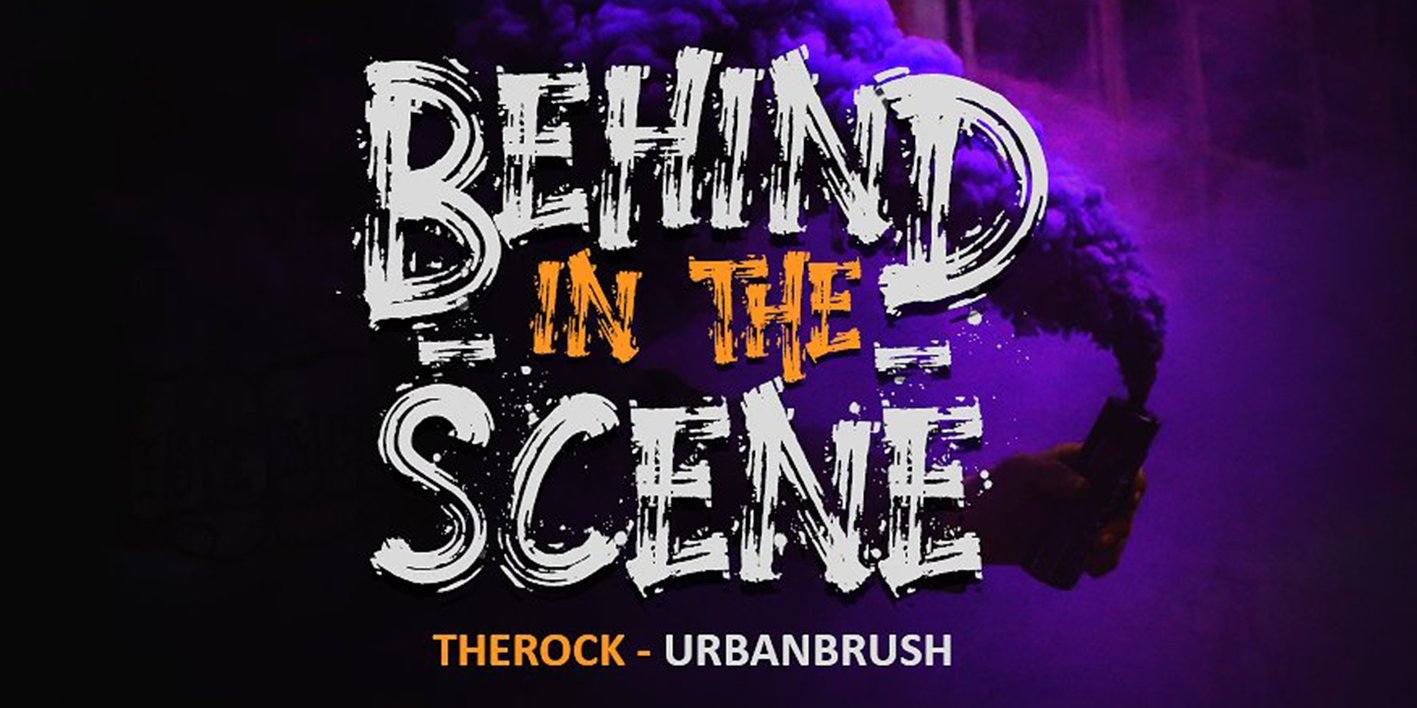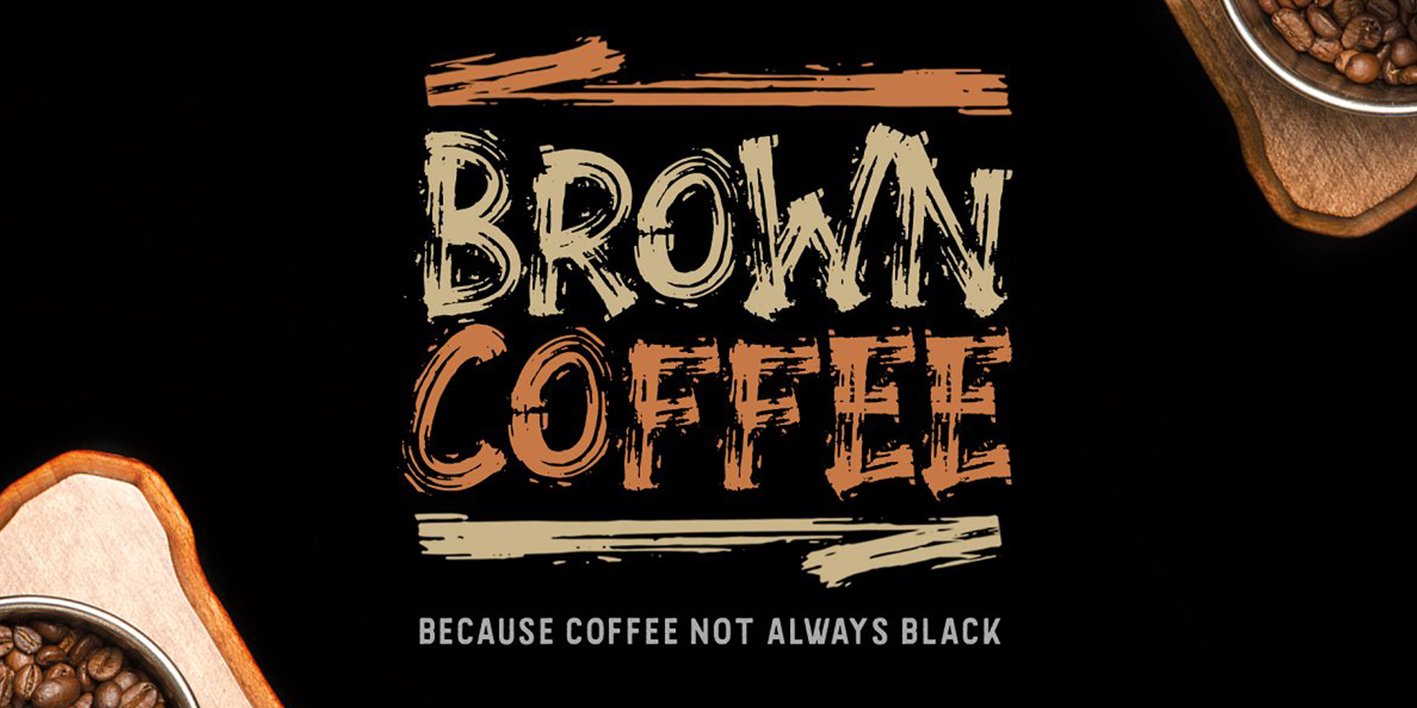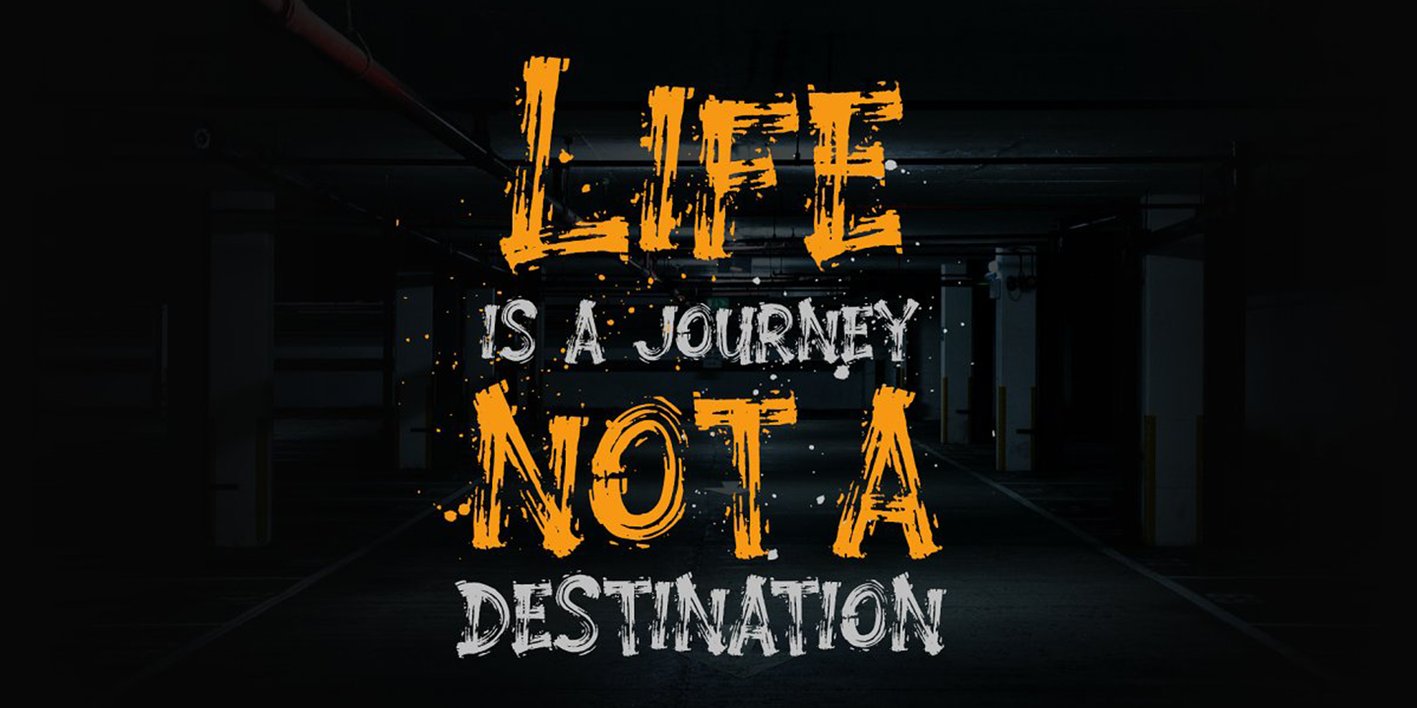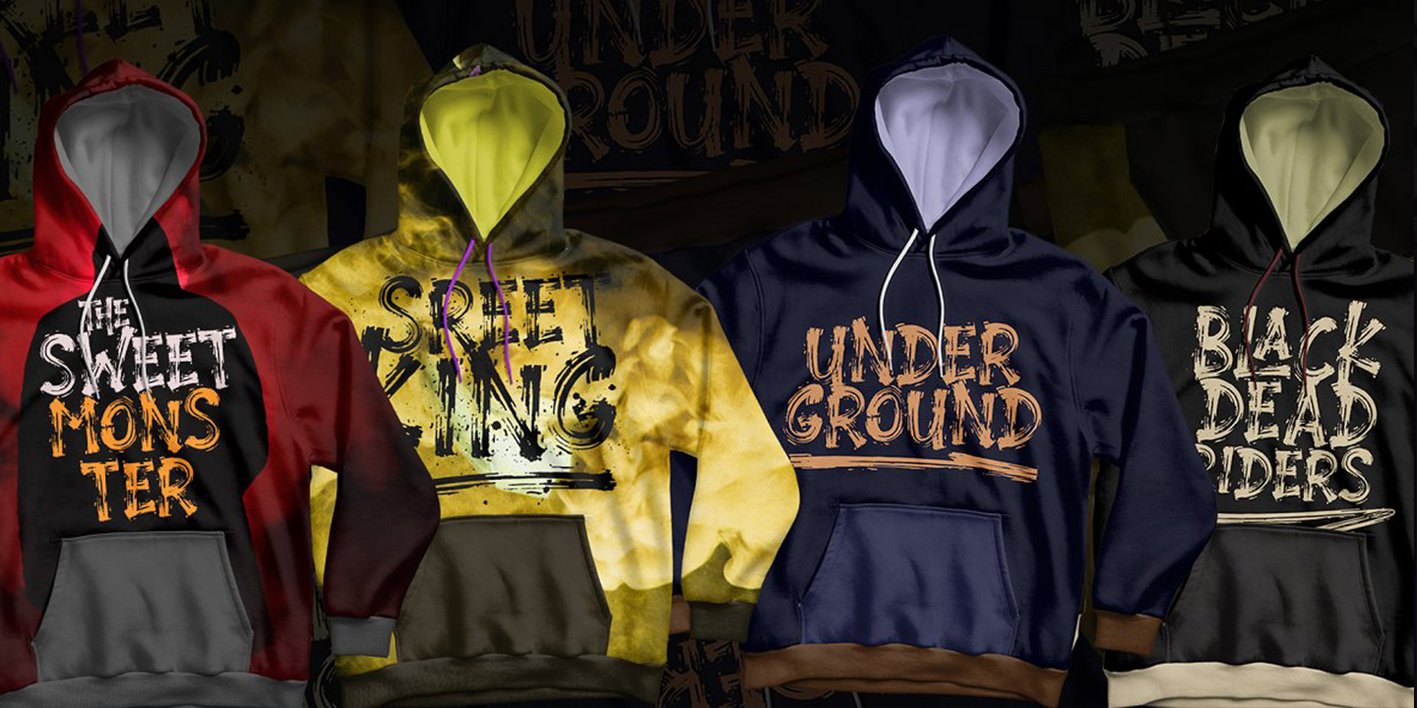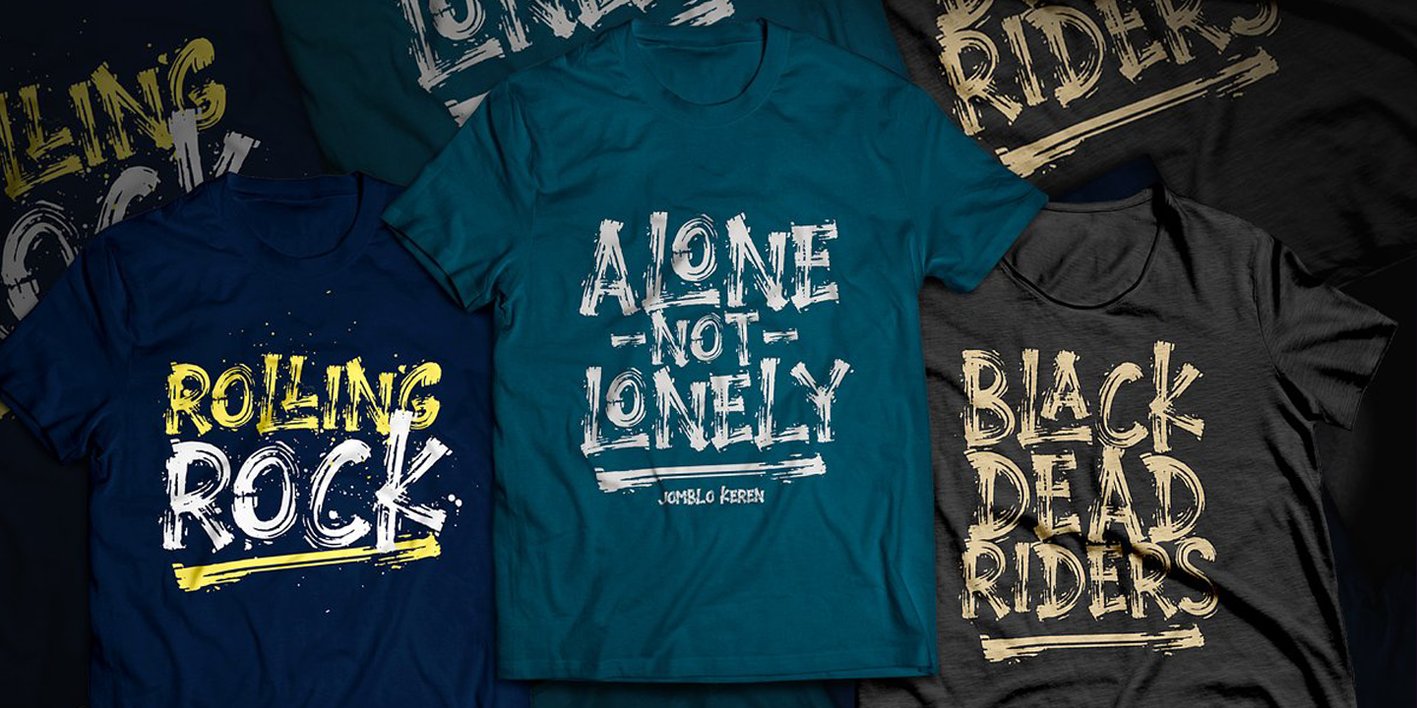
Therock Font
The Rock is a supercharged, street-wise brush font bursting with energy. With extra attention to quick strokes and sharp details, The Rock is ideal for logos, apparel,T-shirts, Hoodie, quotes, product packaging, or anything which needs a typographic turbo-boost. The Rock Regular is the standard version of the font. Perfect for titles and logos. The Rock Swash is if you need a cool underline under your text or a splash of paint. This font set has you covered. Type any letter a-z using this font, and you'll get a unique swash to accompany the font. Language Support - We've added in a great deal of extra characters to support many different languages. Commercial/Extended License - This is in your design arsenal for life! Use on end products for sale is permitted with the standard license. Ligatures - Even though this is a capital letter, it is equipped with Ligatures.